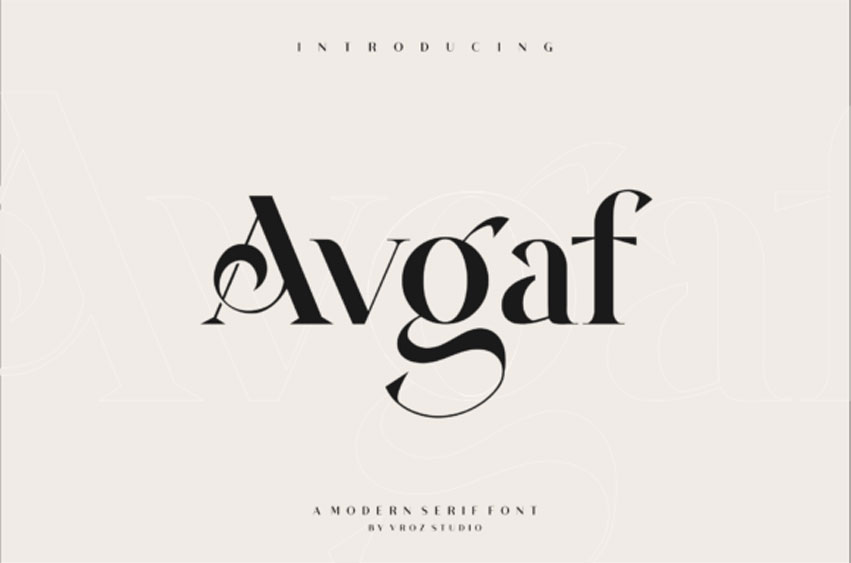
Avgaf Font
Avgaf Font is an elegant serif font, featuring the perfect amount of trendiness. It will elevate a wide range of crafting ideas, from cards, to branding, labels and much more.
Add it confidently to your favorite creations and let yourself be amazed by the outcome generated.